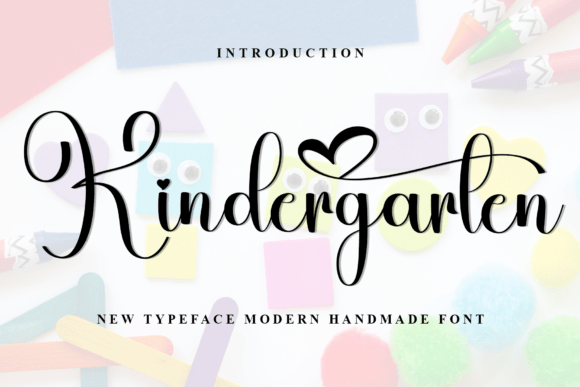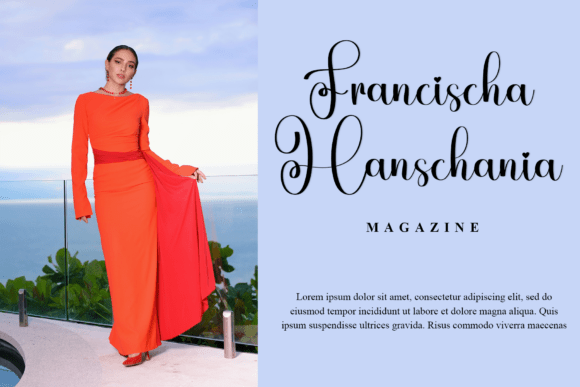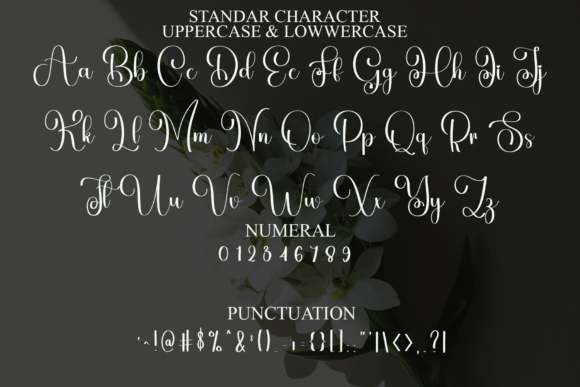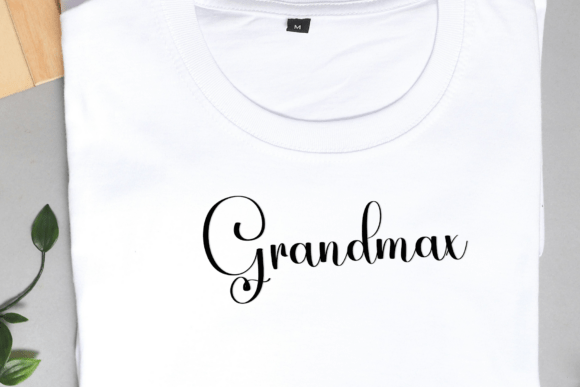
Kindergarten Font
About the Kindergarten Font
Step up your design game with Kindergarten Font, a font that exudes confidence and style. Kindergarten is a casual and creative font that exudes warmth and friendliness. Its round, playful strokes create a relaxed and approachable feel, perfect for personal projects, invitations, and social media graphics. The font’s charming, hand-drawn aesthetic adds a fun and unique touch to any design.
Kindergarten’s playful design shines in headlines, short text blocks, and branding elements for children’s products or businesses emphasizing fun and approachability. It’s also well-suited for invitations, social media posts, and packaging where a friendly, hand-crafted aesthetic is desired. However, its informal nature makes it less suitable for body text, long paragraphs, or applications requiring high readability, such as UI design or legal documents.
Pairing Kindergarten with a clean sans-serif like Open Sans for body copy creates a strong contrast, balancing the font’s playful energy with clear, legible text. For a more sophisticated feel, consider pairing it with a classic serif such as Garamond or a slightly more geometric sans-serif like Montserrat. These pairings provide visual structure and prevent the design from feeling too whimsical.
Kindergarten’s overall personality is best described as friendly and approachable, conveying warmth and a sense of lightheartedness. Its casual style makes it ideal for projects targeting young audiences or brands aiming for a charming and informal brand identity.
Kindergarten Font Usage Examples
Kindergarten Font Example